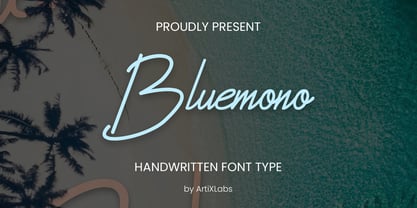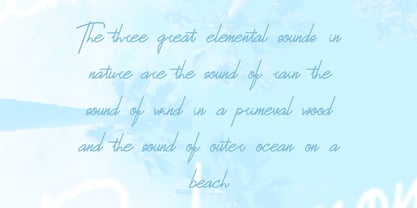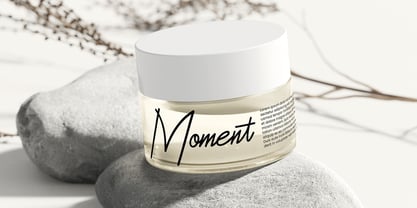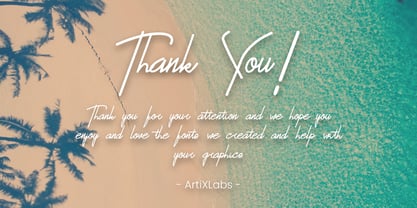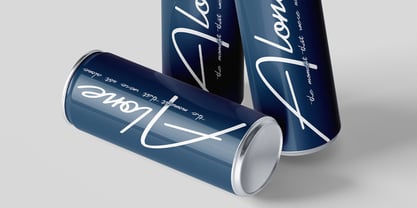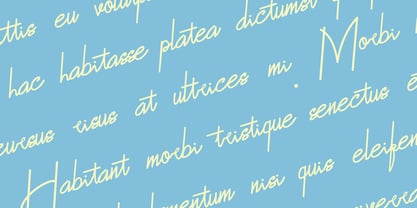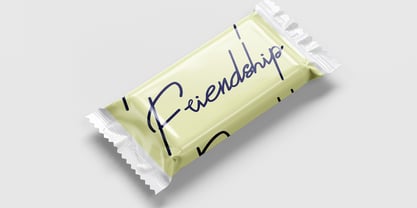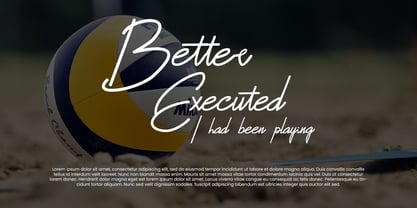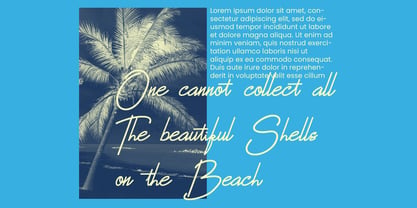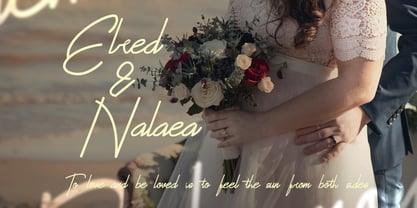
Bluemono
by ArtixLabs
The Bluemono Font Family was designed by Lukman Hakim and published by ArtixLabs. Bluemono contains 1 styles. More about this family
Bluemono - Handwritten Minimalist Script Font for Professional Branding & Content
Bluemono features consistent strokes tailored for small to medium businesses. From café logos and website headers to Instagram Shop promotional content, this font adds a subtle handwritten elegance without overwhelming your design. Create restaurant menus, SME business cards, or company taglines with a clean, professional look.
Designers: Lukman Hakim
Foundry: ArtixLabs